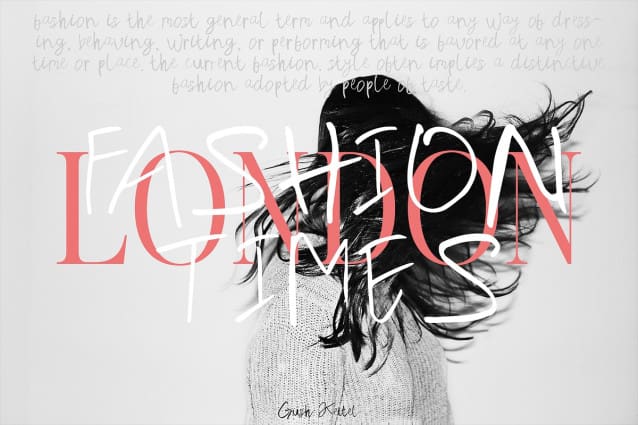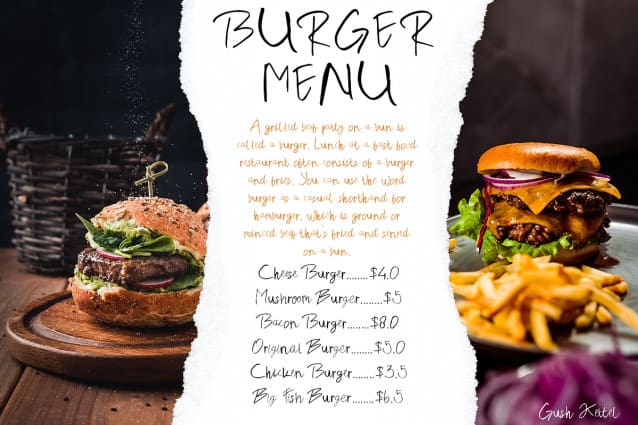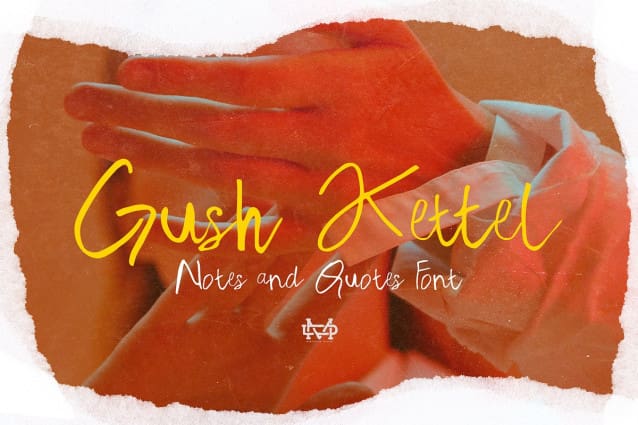
Gush Kettel Font
Gush Kettel Font is a distinct note font made manually with a pen contains 50+ ligatures with two alternative. GushKettle is great for branding, posters, logos, invitation, writing and headings.